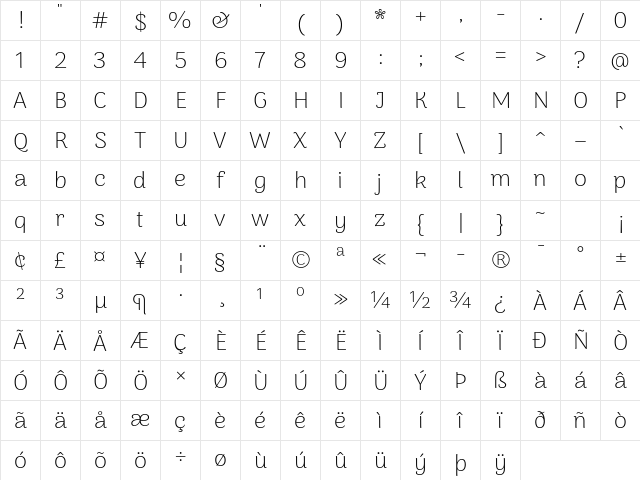
Arima Madurai ExtraLight
Style: ExtraLight
Foundry: NDISCOVER
Designer: Joana Correia and Natanael Gama
Arima Madurai Family
Design Context for Arima Madurai
Arima Madurai is a composed and adaptable typeface that performs quietly and consistently across a wide range of design contexts. Its slender proportions lend an understated elegance to any composition.